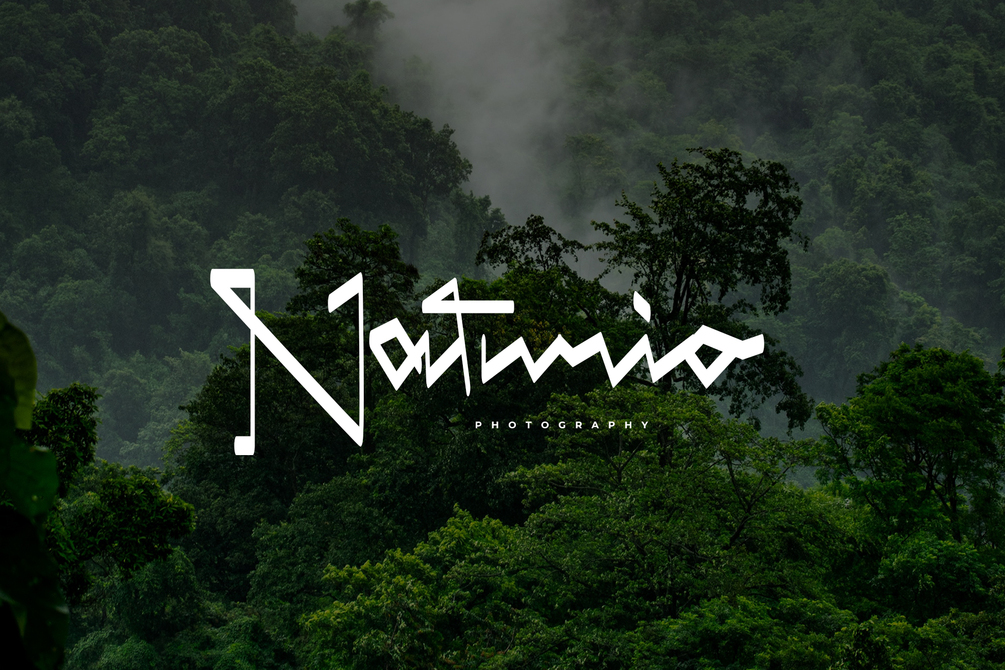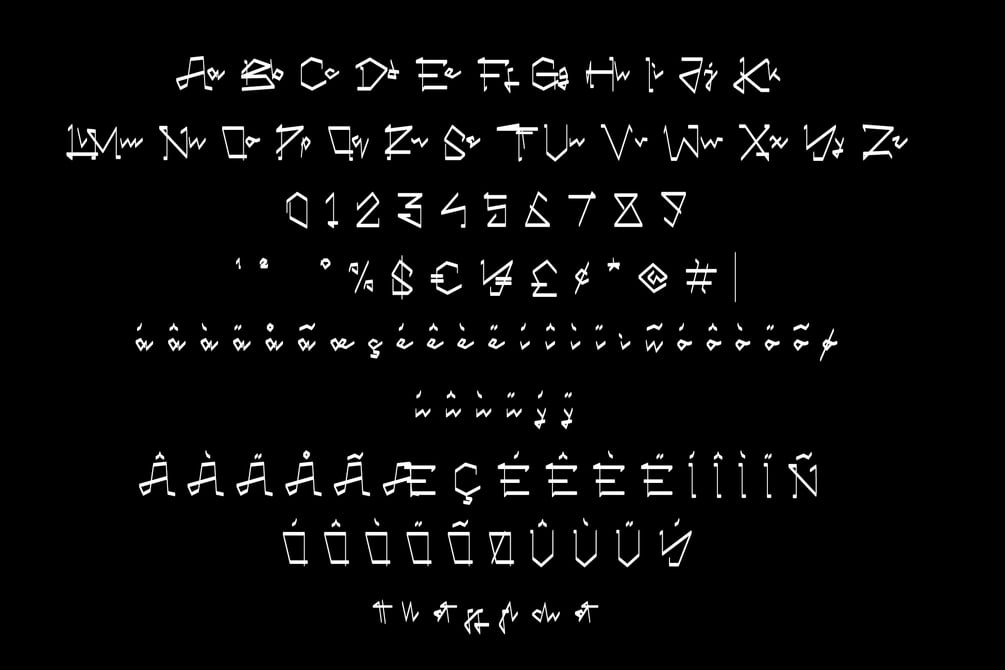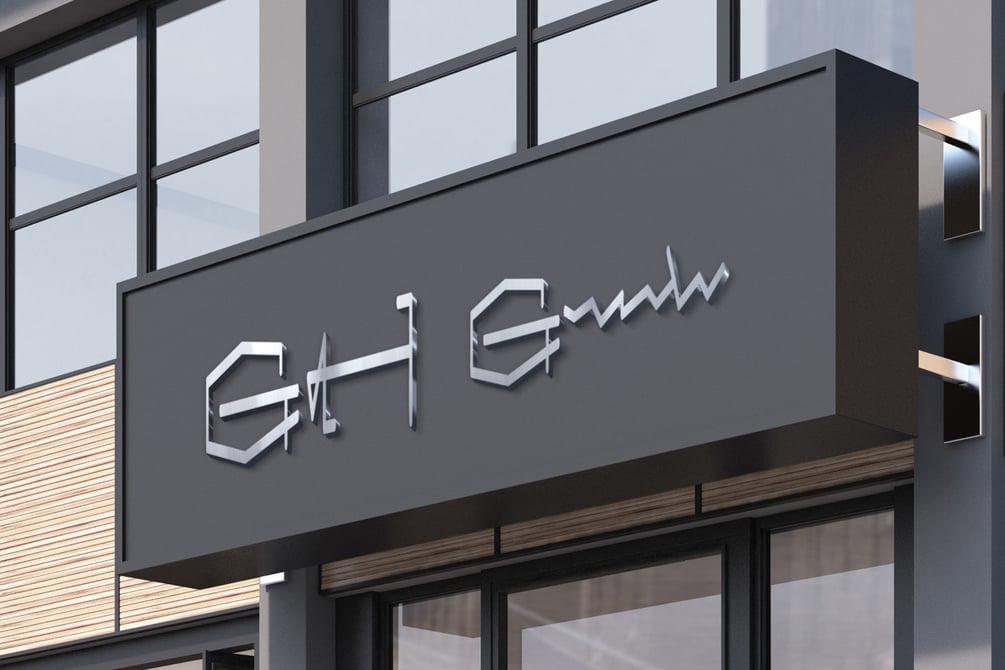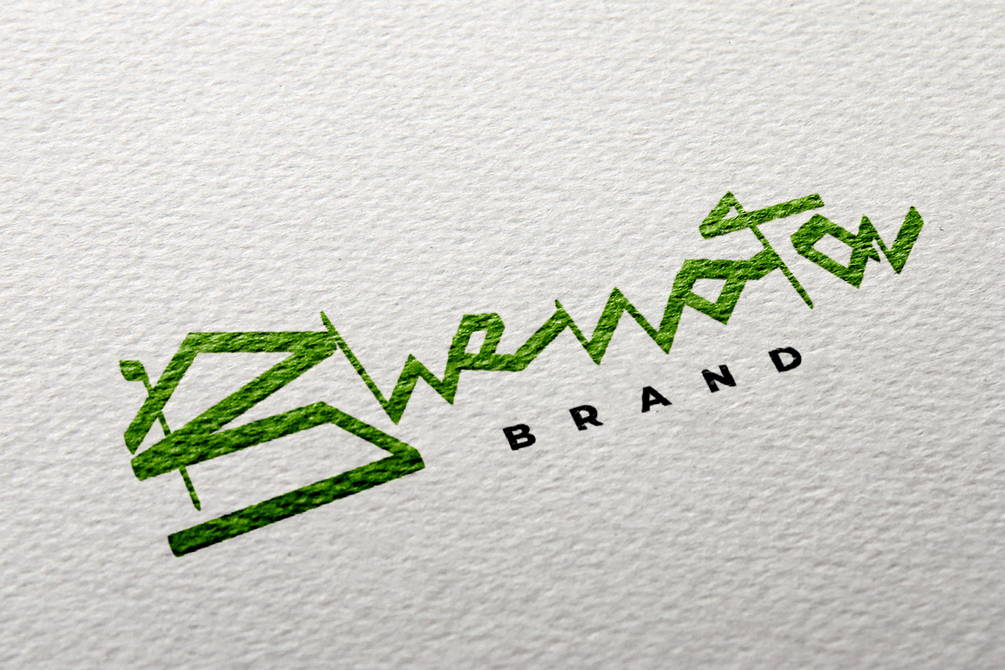
Romacht Font
Romacht is a script font with a strangle's style. suitable for social media, event, craft, advertisements, and so on. contains standard English letters, numbers, punctuation, alternates and several accents that support multilingualism.